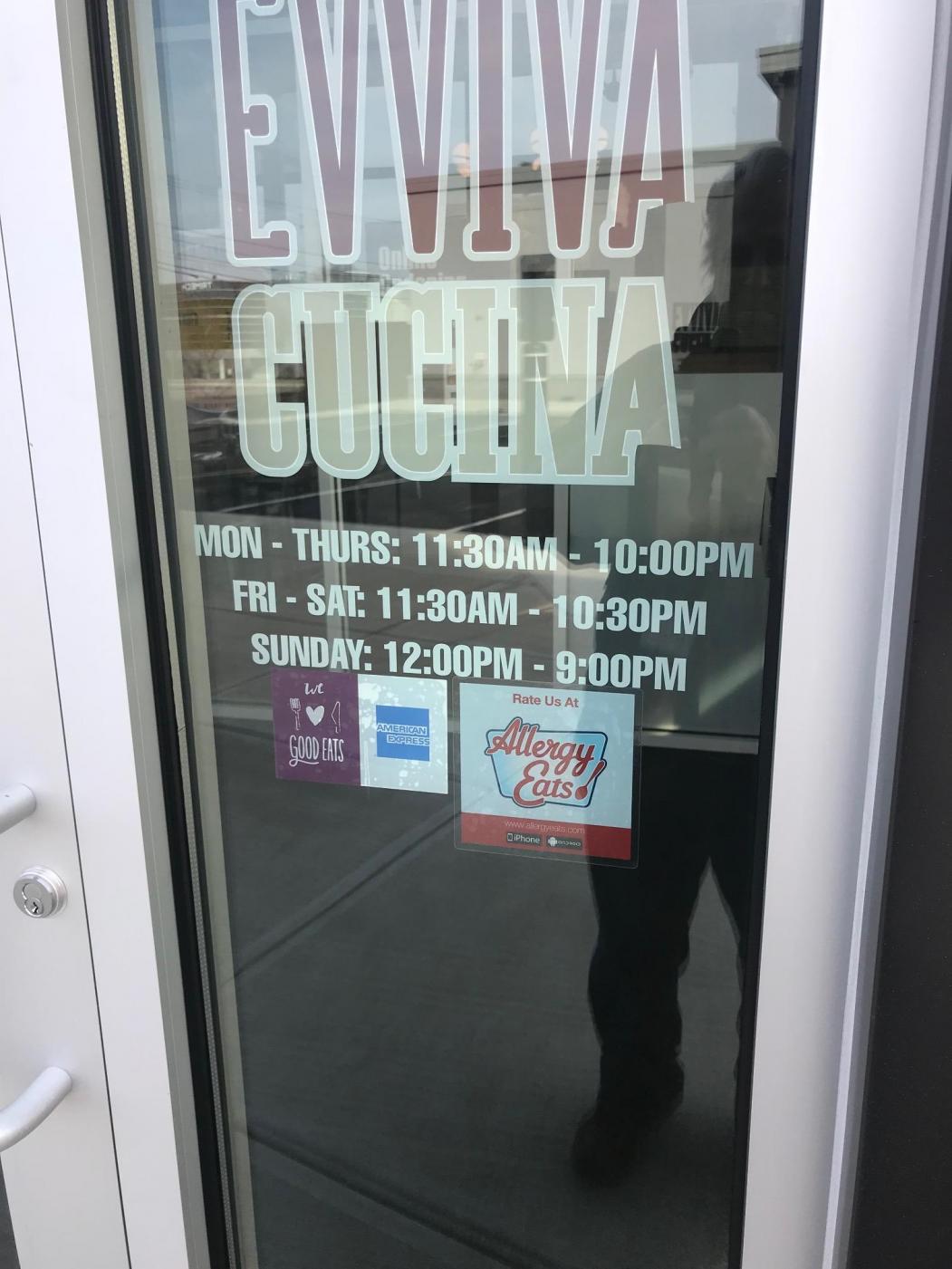
EVVIVA CUCINA ONLY
1877648693_EvvivaSidewindowLogo.thumb.jpg.9265a59b97de1d2b856497f3579f25be.jpgThis is a pic of a vinyl application about 14" wide. Simply a type font with a very large stroke/outlinte to cause this effect.